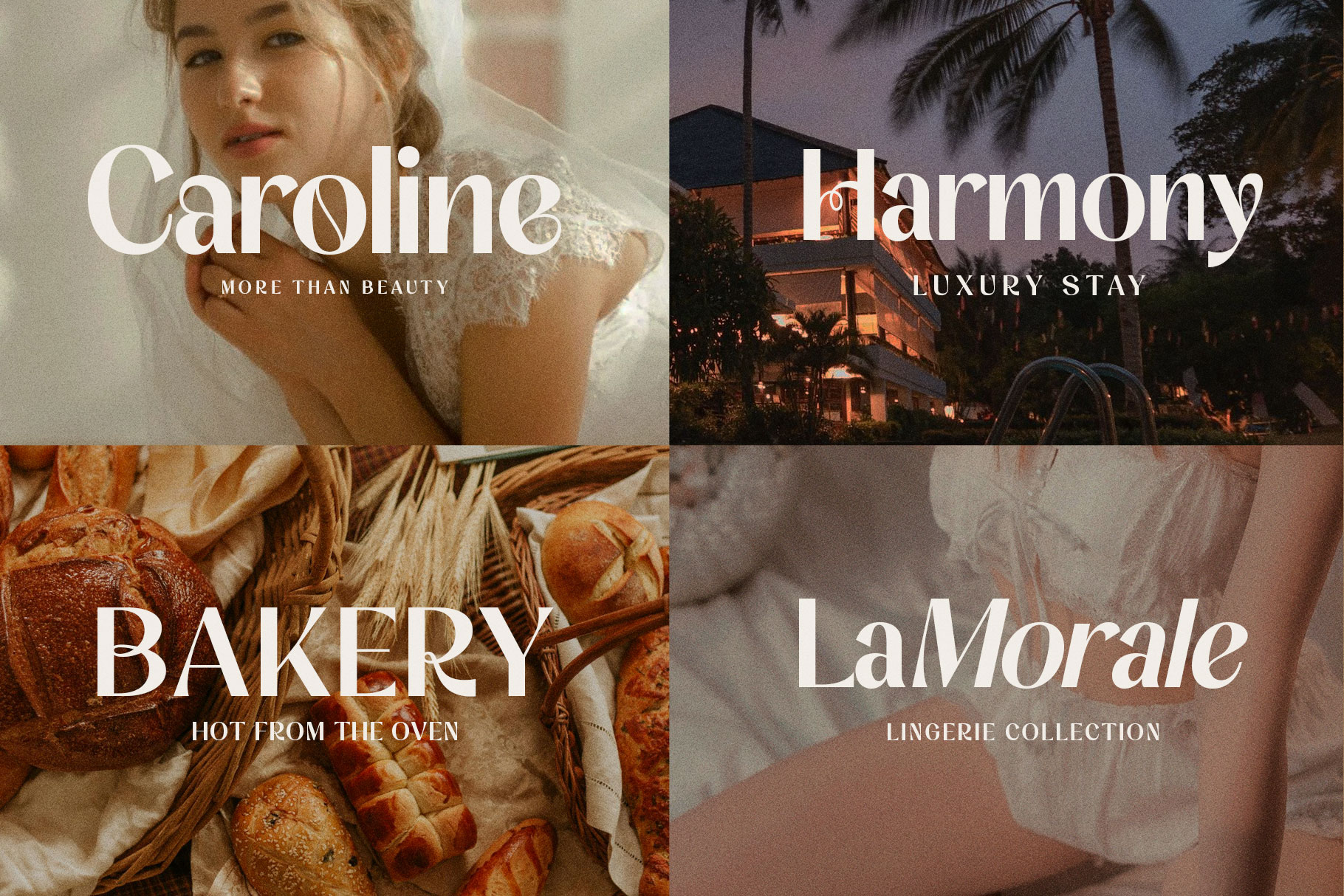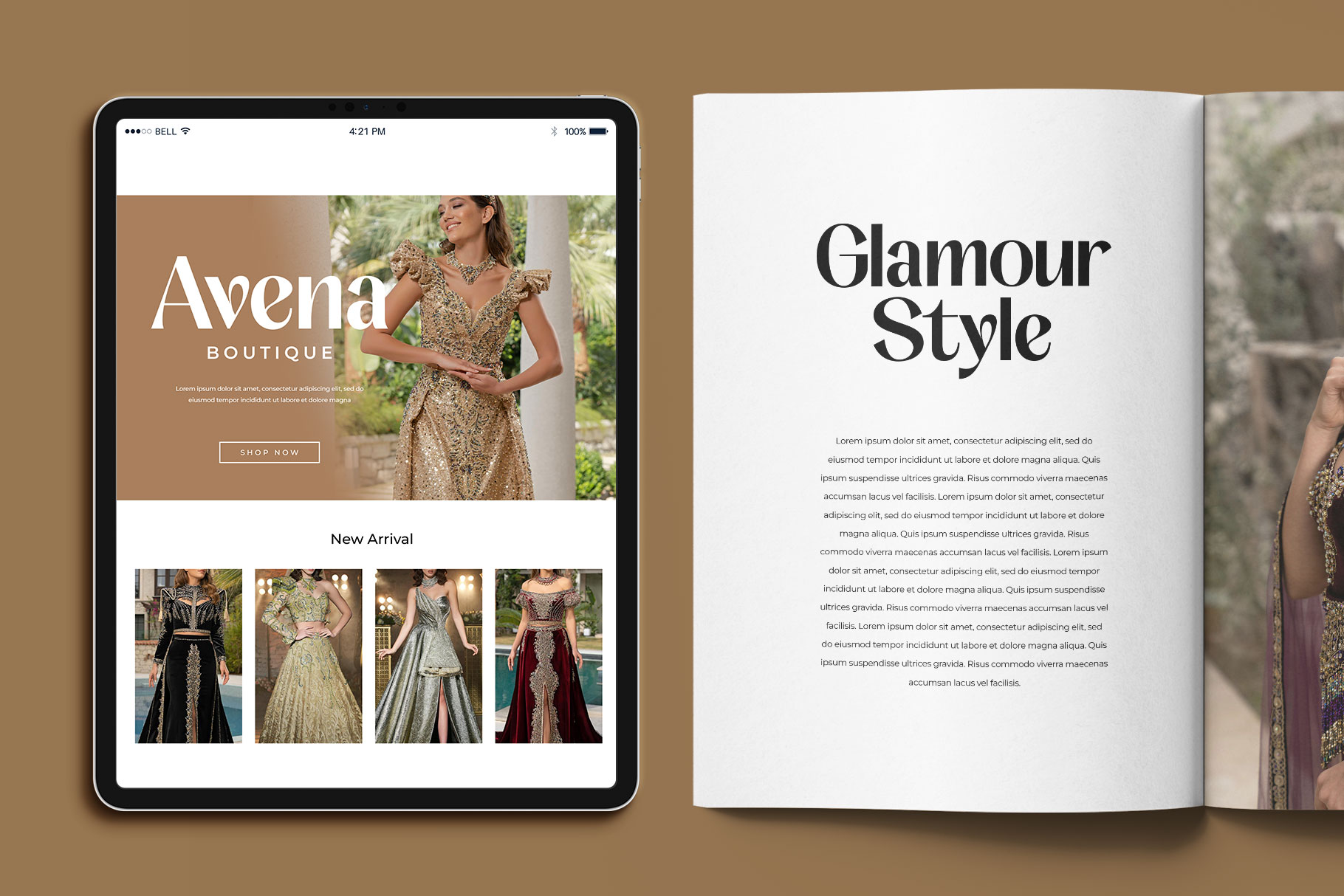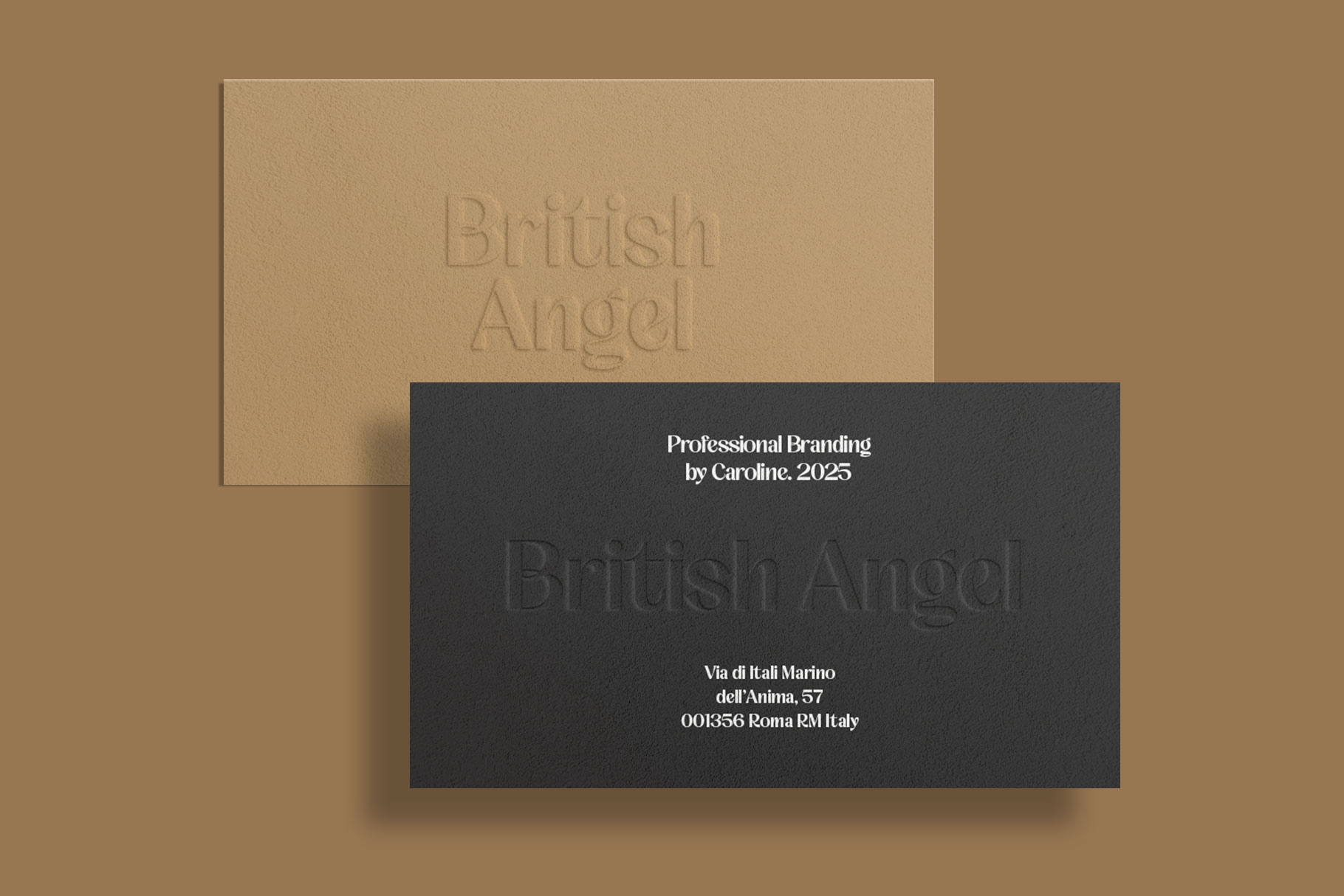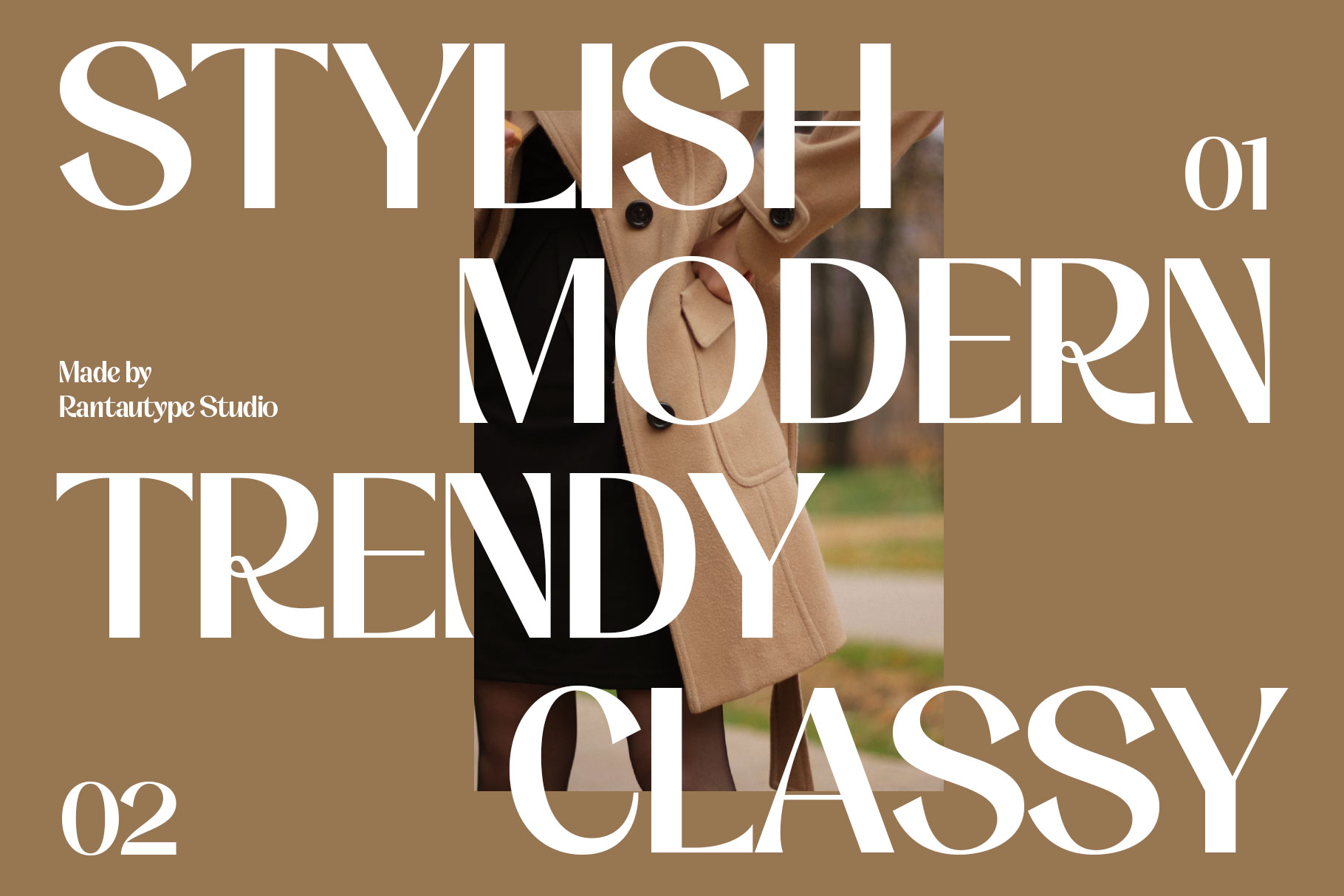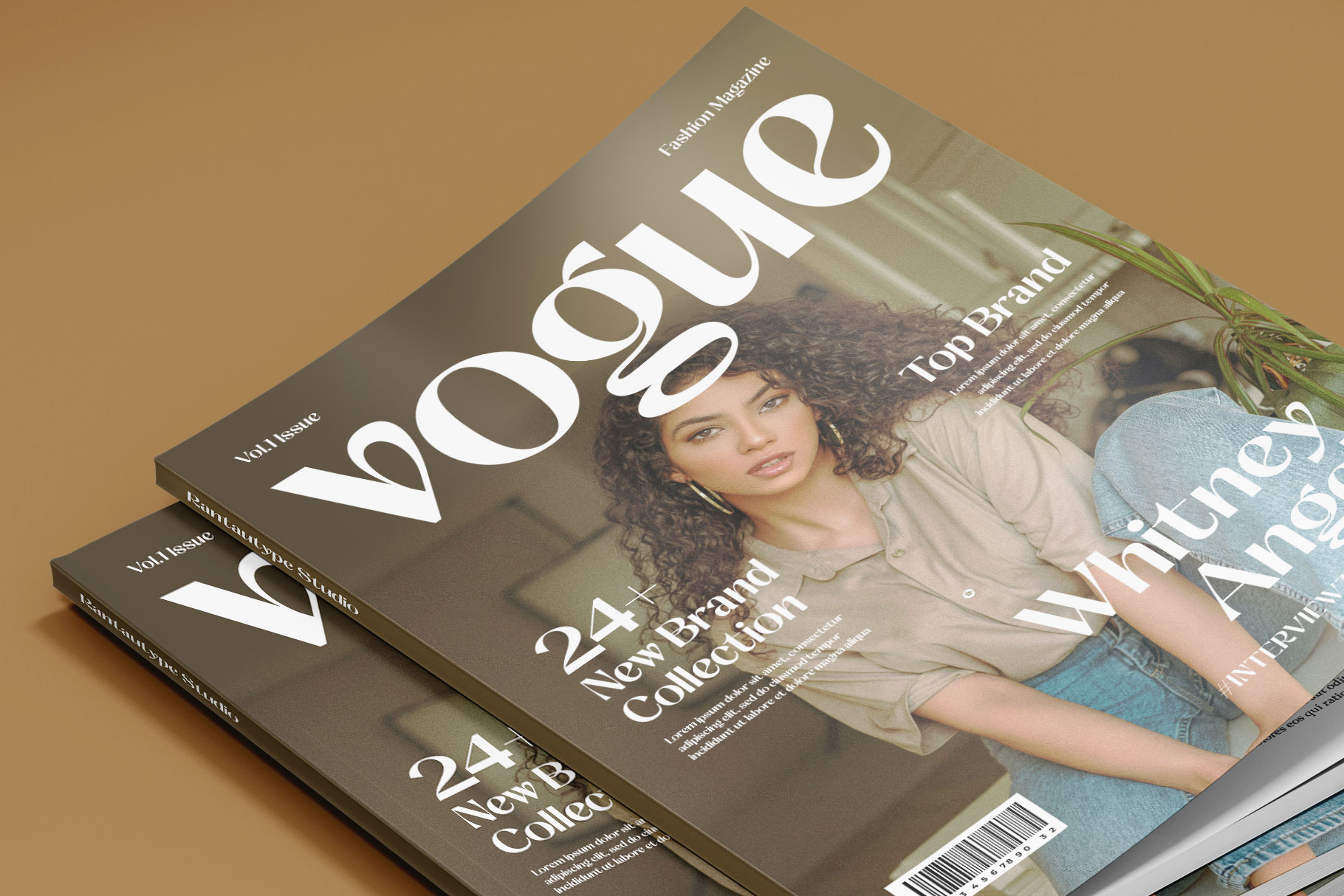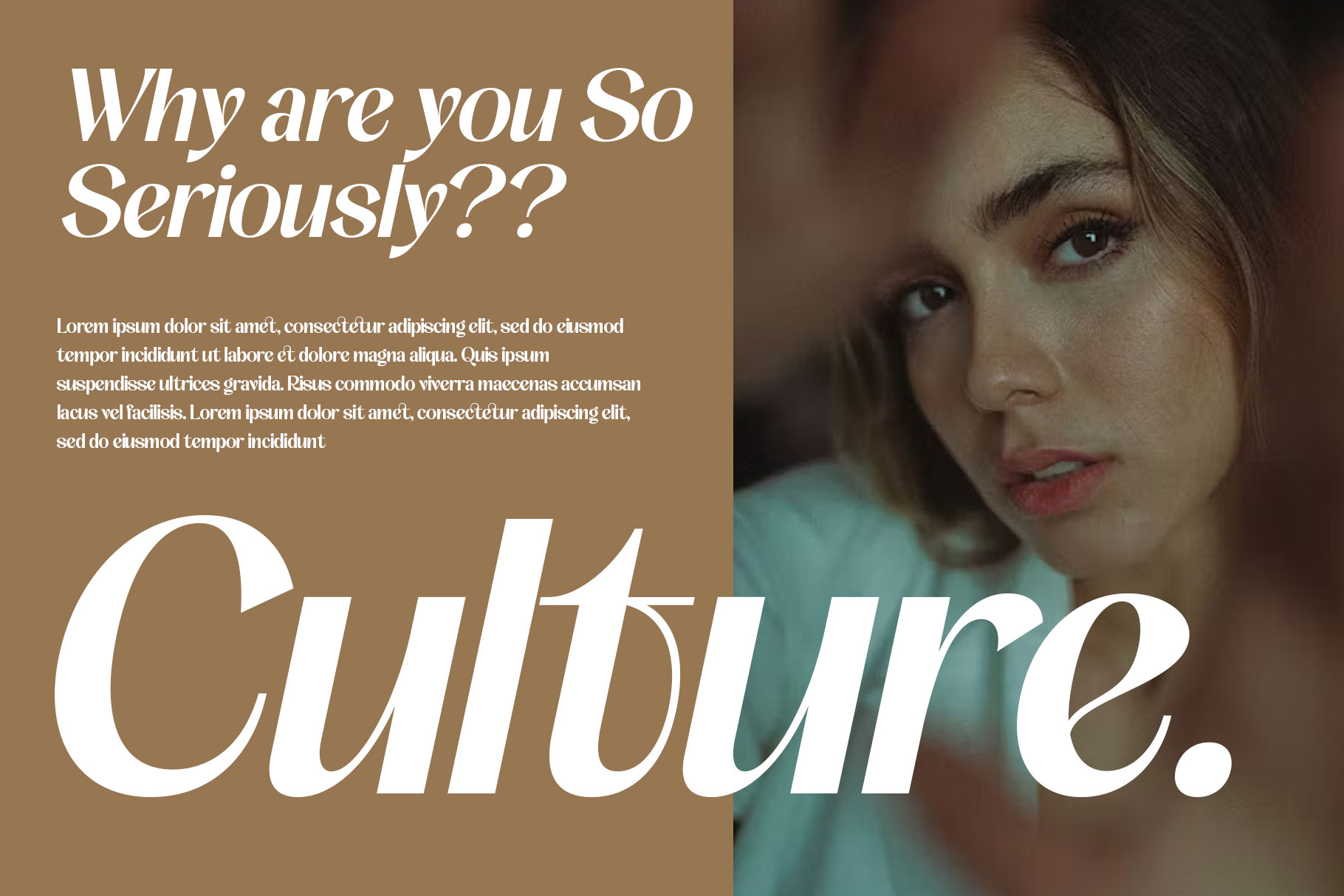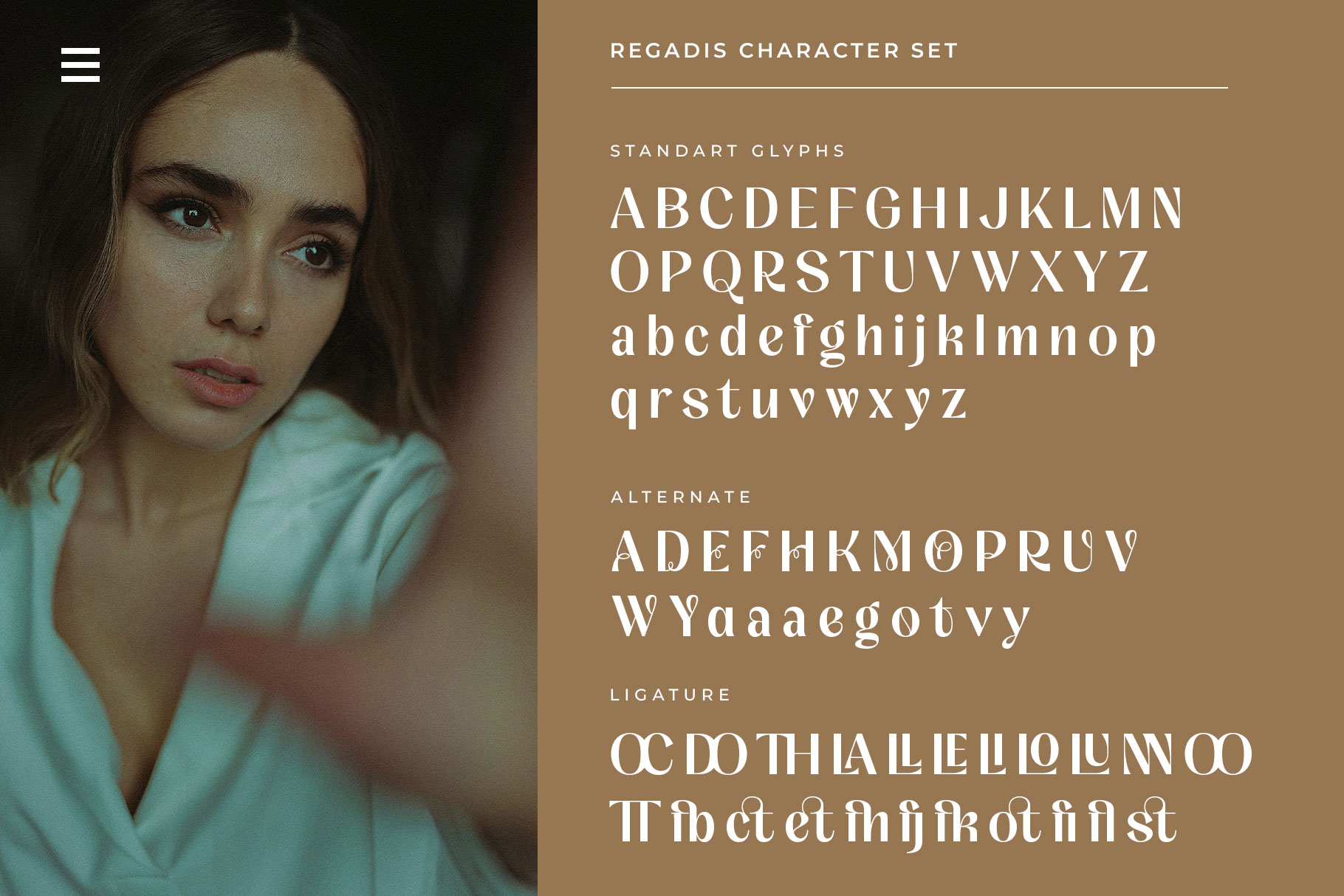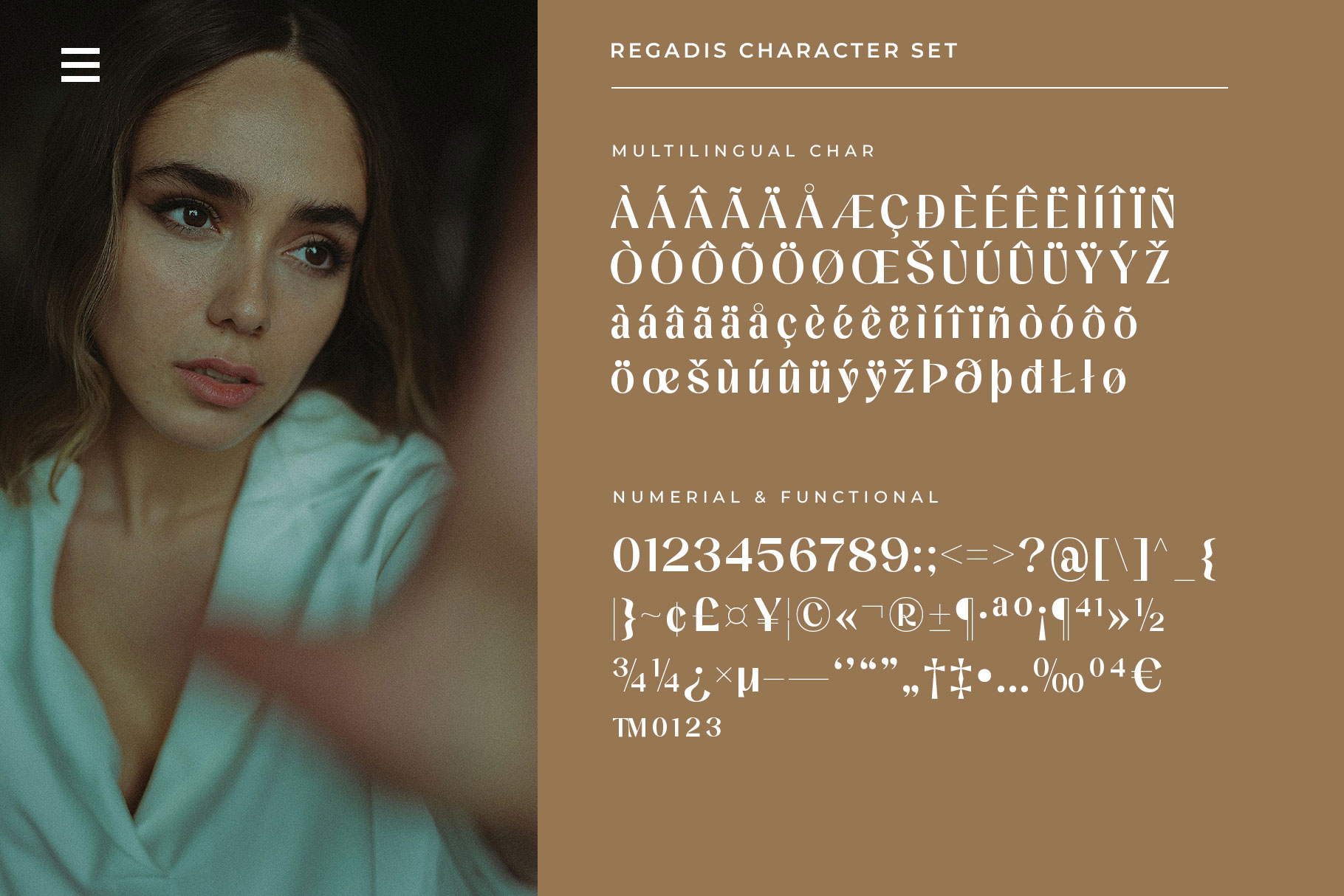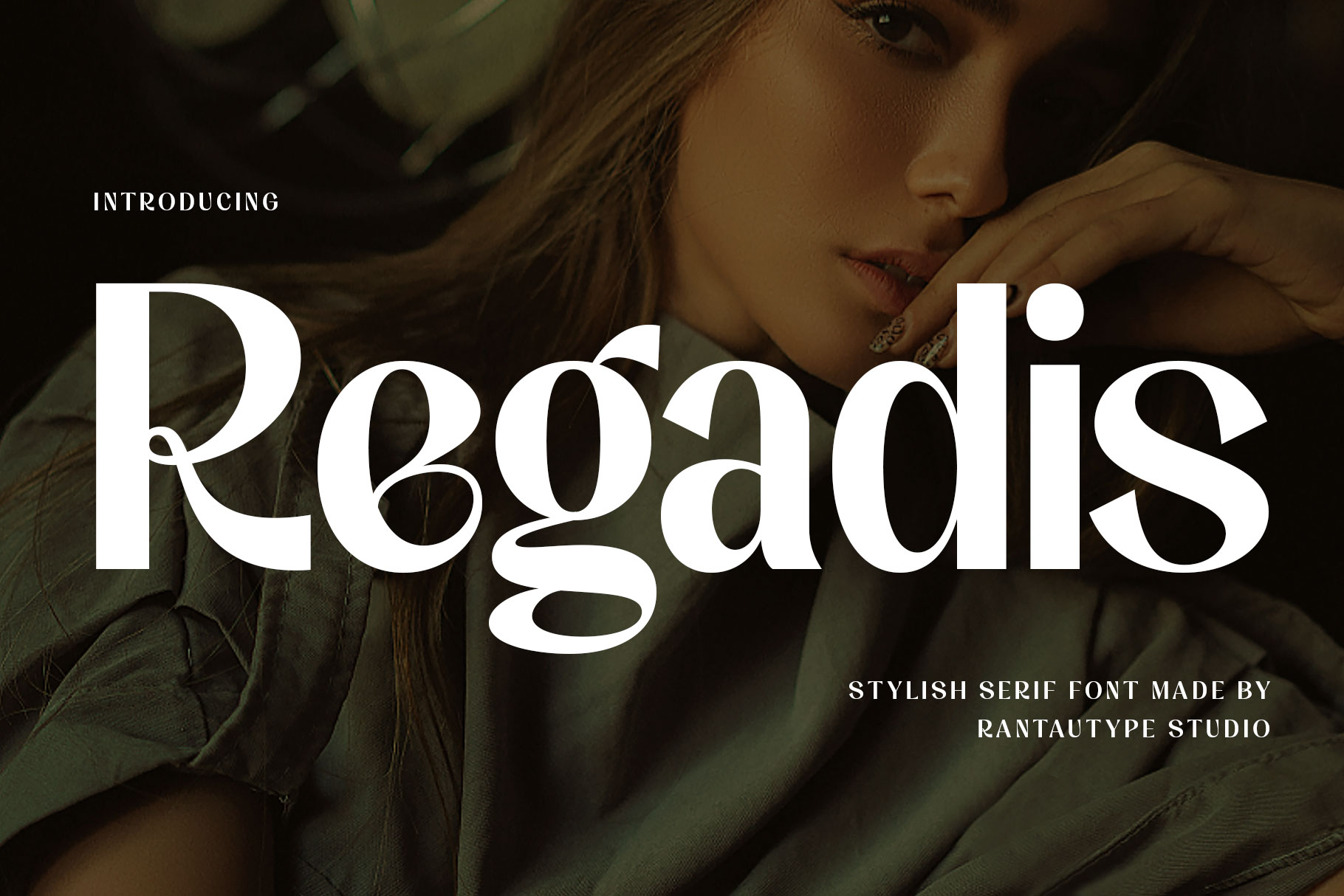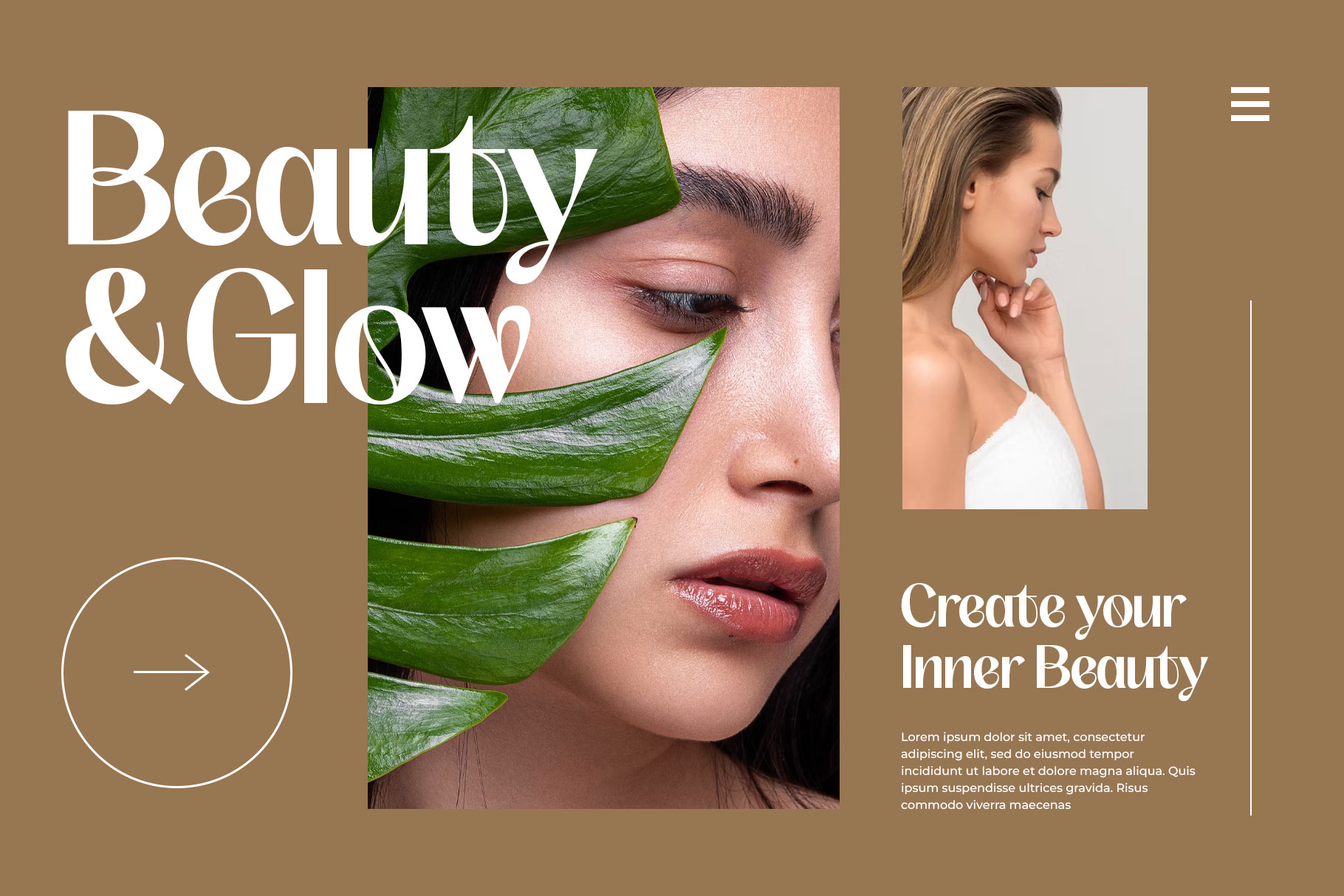
Regadis is stylish serif font embrace grace and luxurious. Regadis bring beautiful curves to make your design project awesome. Regadis is a perfectly choice for any creative endeavor, chic, lifestyle design such as logotype, advertisements, watermark on photography, stationery, branding project, display and magazine, invitation, corporate brand, product design, label, business project and many other project with modern touch.